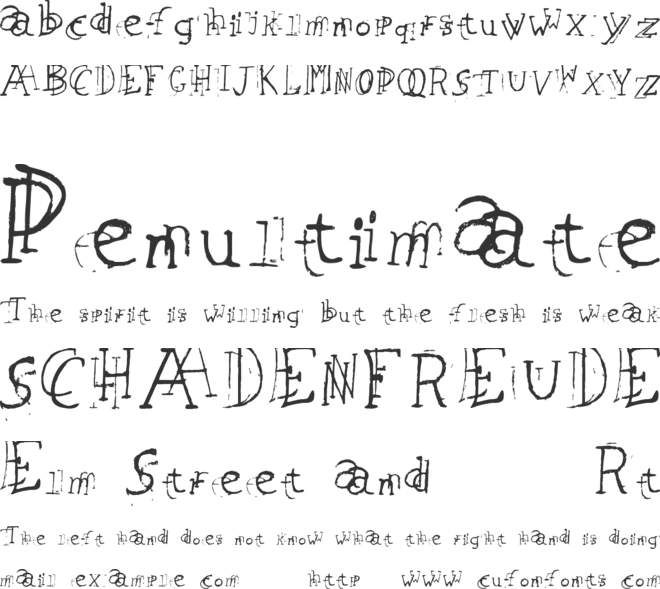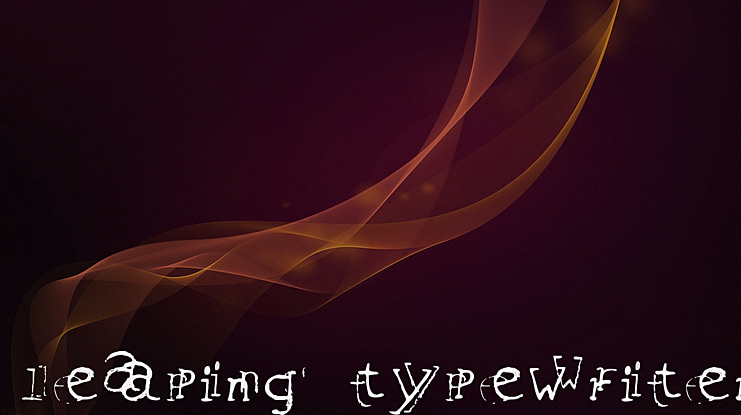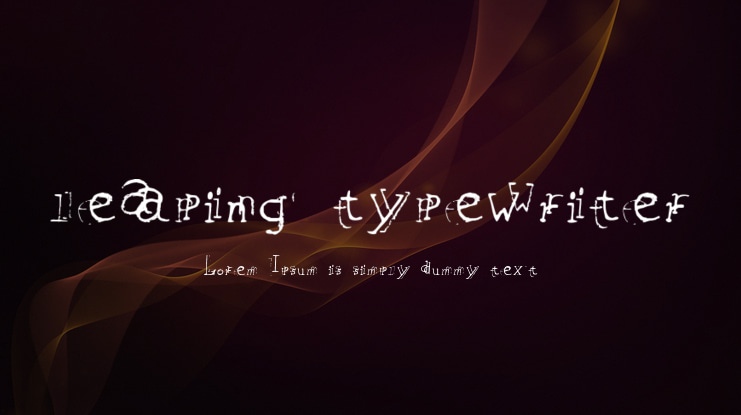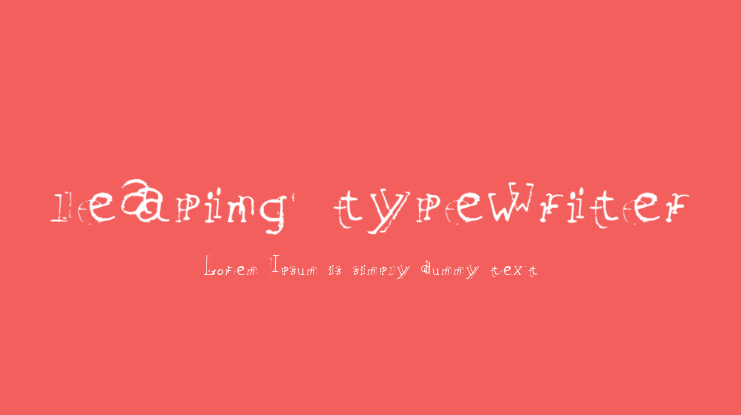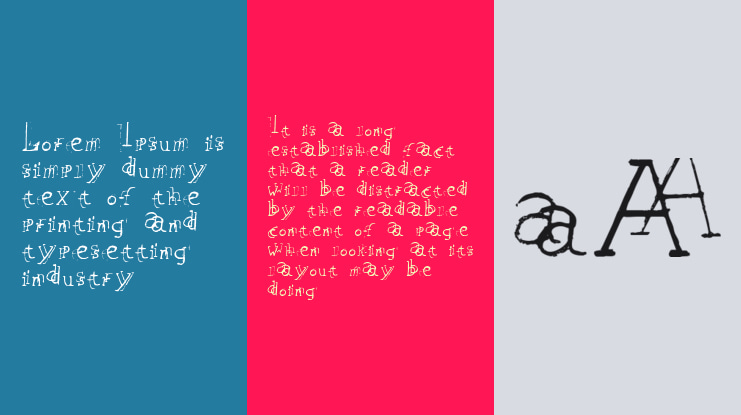
leaping typewriter Font
My typeface is based on my personal experience of a bad typewriter I had when I was a kid, which was strongly used to type letters to friends and family. In the past with a bad typewriter I would type a character twice to show a strong print of a letter but would regularly get it off point. This is what led me to create such a font.